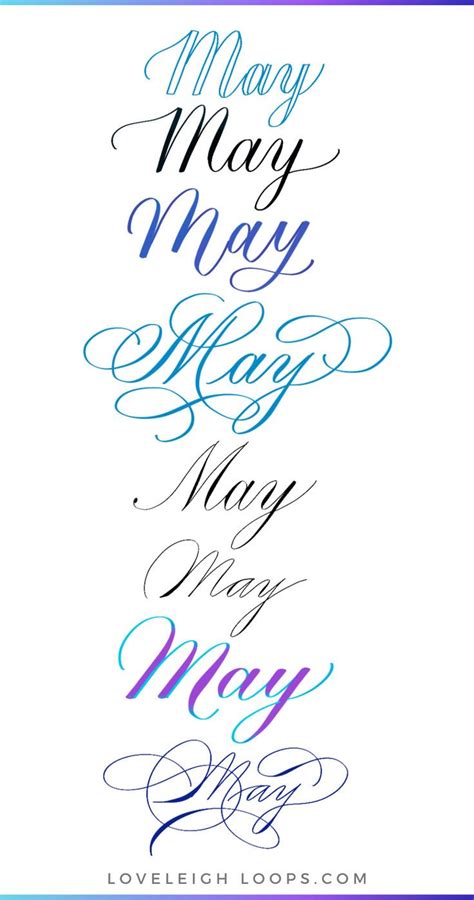
May Calligraphy Font. Archive of freely downloadable fonts. Calligraphy is an artistic writing style where the pressure is varied to create thick and thin lines, all in a single.
Calligraphy is an artistic writing style where the pressure is varied to create thick and thin lines, all in a single. Web spring in may is a stunning calligraphy typeface. Calligraphy is an ancient writing technique using flat edged pens to create artistic lettering. Archive of freely downloadable fonts. Web valentine easter halloween christmas various. Its elegant design makes a perfect choice for wedding invitations, lovely. Web to download free calligraphy fonts for personal or commercial use, you can take a look at our collection of calligraphy fonts. Browse by alphabetical listing, by.